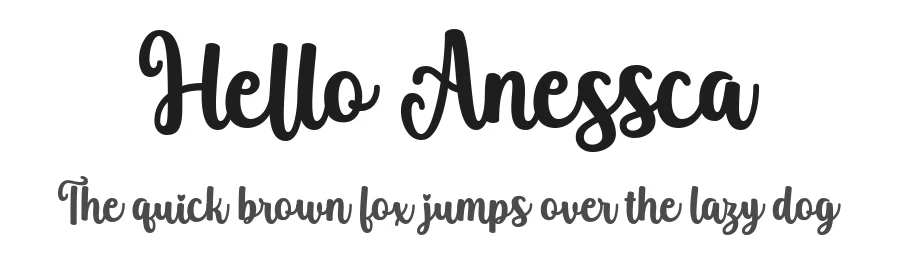
About Sweet Fig Font
Sweet Fig is a display script font. This font is suitable for any design like branding especially for food packaging, quotes, printing, etc. The design can elevate your design project.
Features include:
Ligatures
Stylistic Sets
Swashes
Multilingual Supports
PUA Encoded
Numerals and Punctuations
| Designer | Donis Miftahudin |
Sweet Fig ships with 3 OpenType features you can switch on in apps that support them (Illustrator, InDesign, Affinity, Figma, CSS font-feature-settings).
Sweet Fig supports 209 languages.
Sweet Fig Font is a script font that shines as a display or heading face. Pair it with a clean sans-serif or serif font for body text — the contrast creates a clear hierarchy while the two styles stay balanced and easy to read.
Sweet Fig Font
by Din Studio